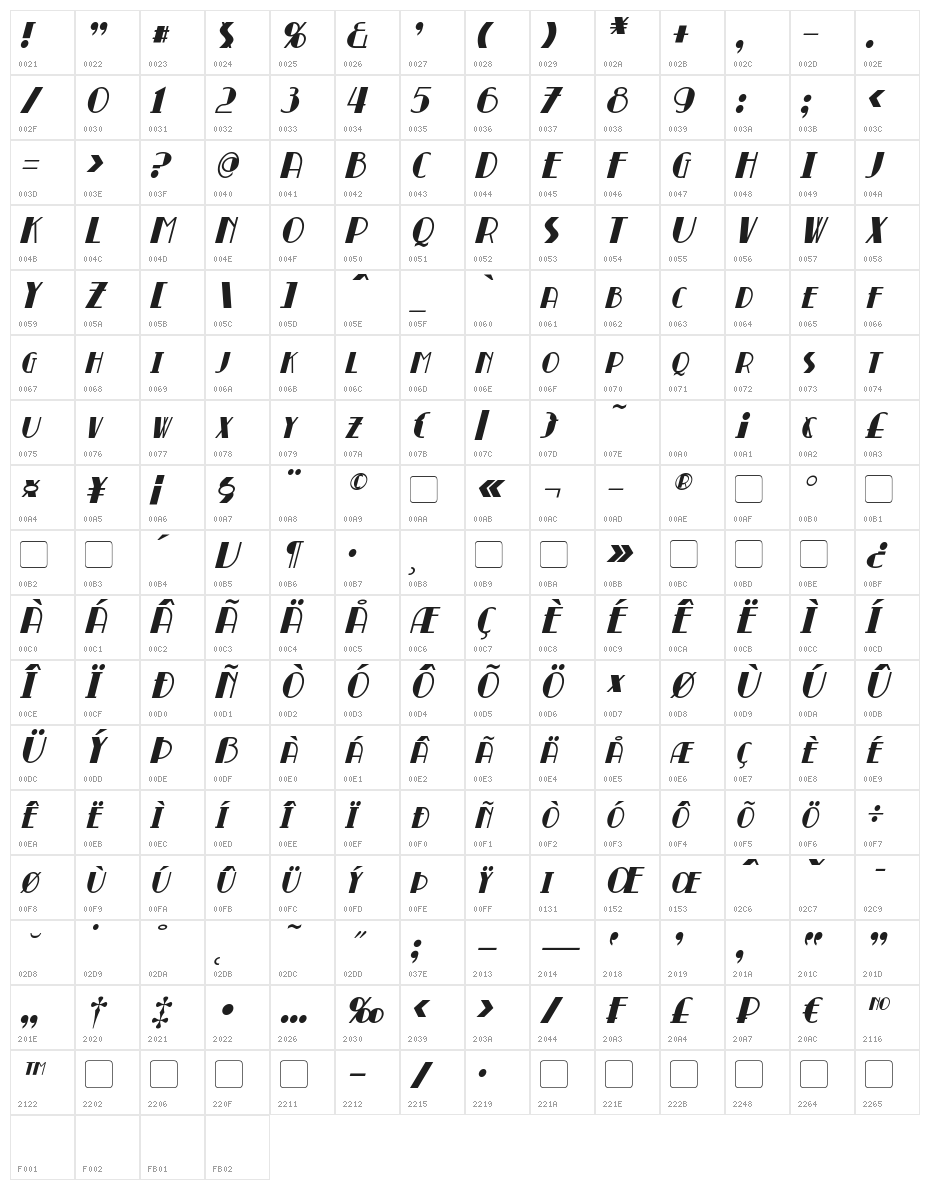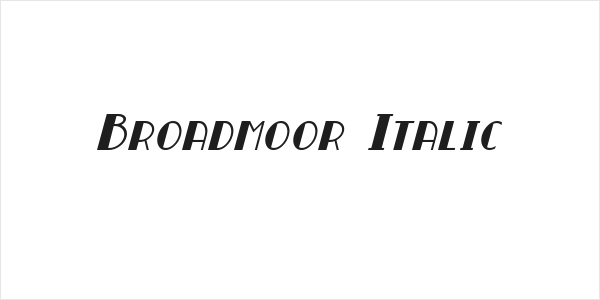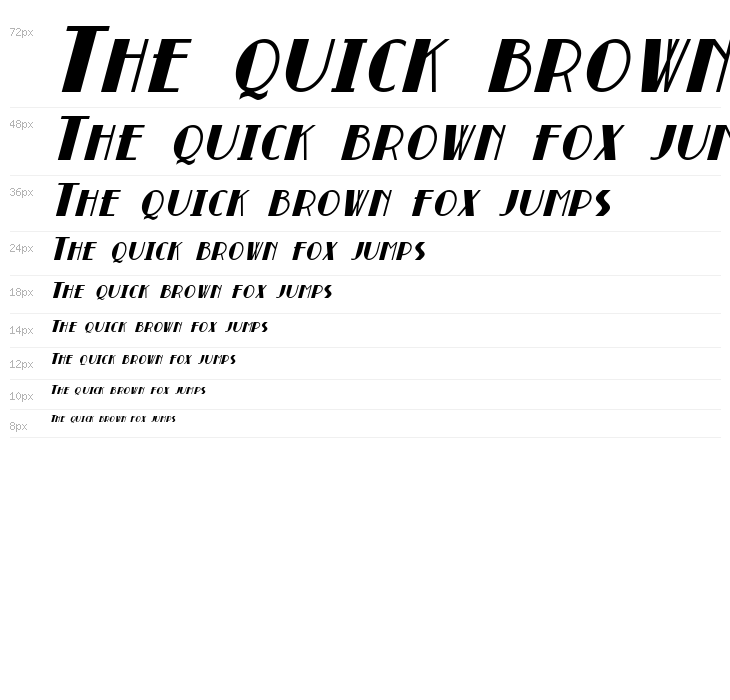
Broadmoor Italic Font
Broadmoor Italic Description
This font features a dynamic and bold italic style with a strong forward slant, giving it a sense of motion and energy. The characters are designed with sharp, angular edges and a consistent stroke width, providing a modern and sleek appearance. The uppercase and lowercase letters maintain a cohesive look, with the uppercase being slightly more pronounced. Numbers and special characters follow the same stylistic approach, ensuring uniformity across all glyphs. The overall design is clean and impactful, making it suitable for attention-grabbing headlines or branding materials.
| Proposed Projects | Ideal for branding, advertising, poster design, and any project requiring a bold, modern aesthetic. |